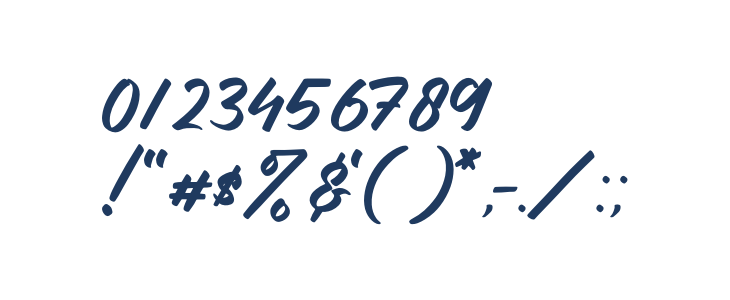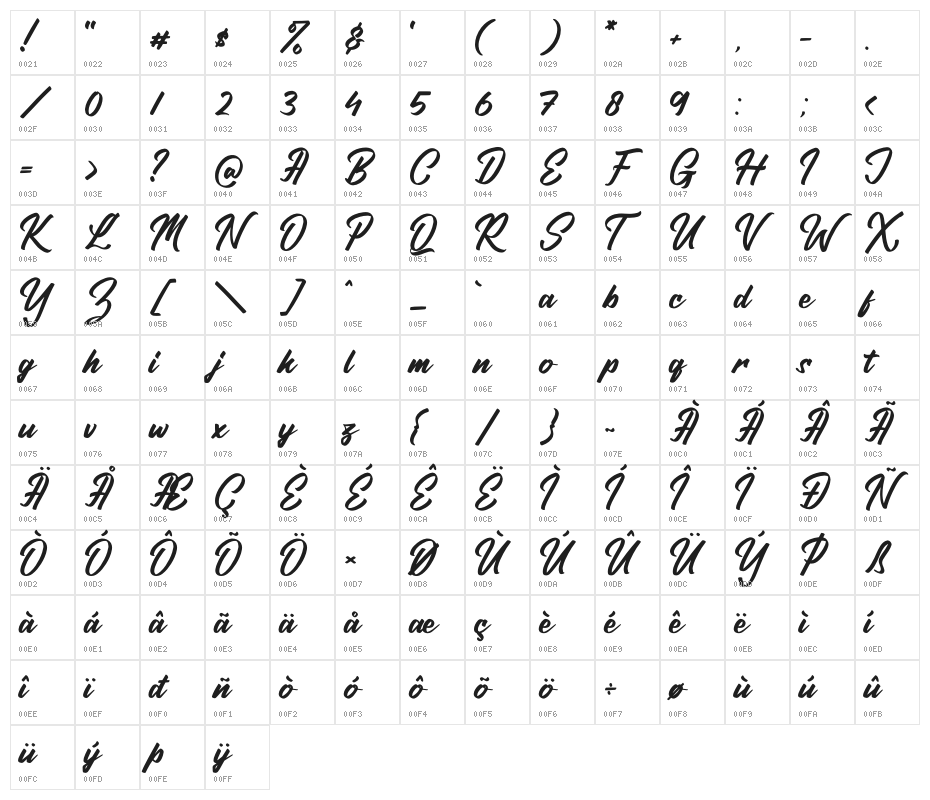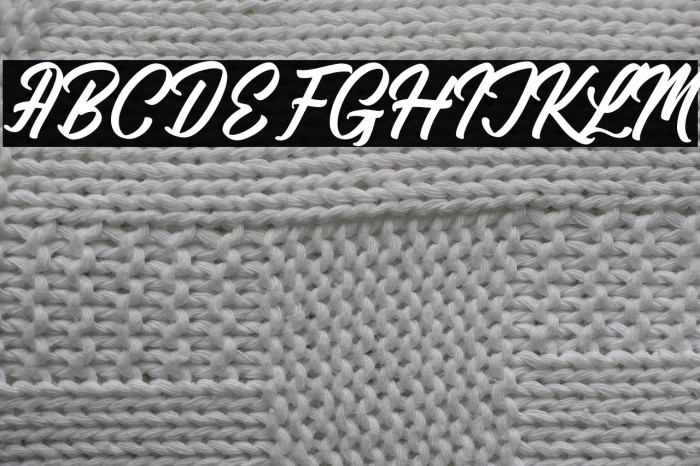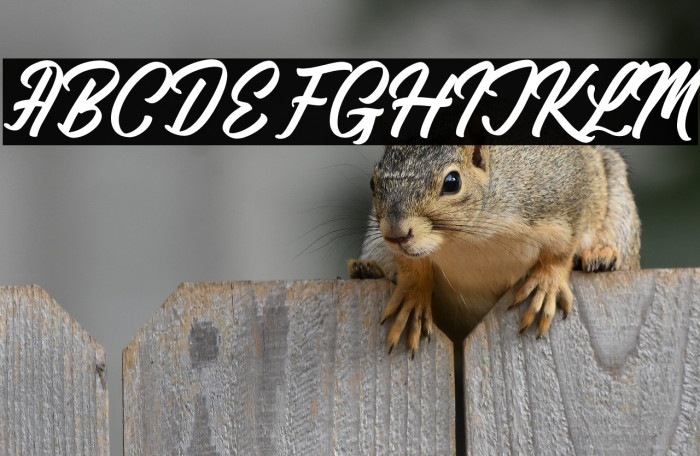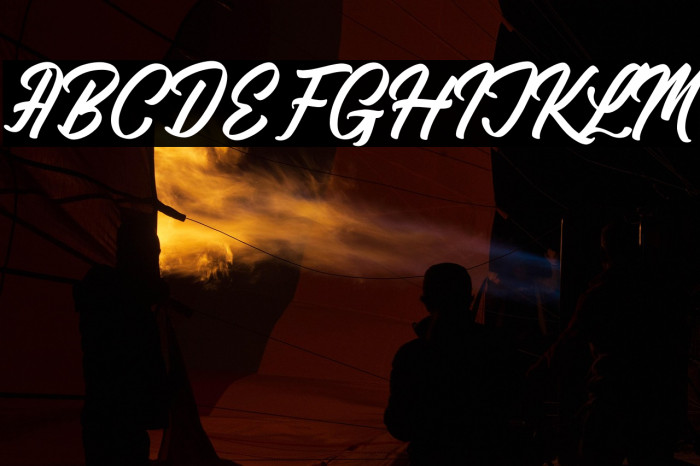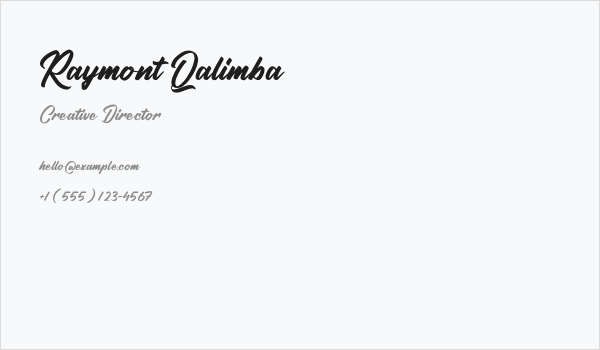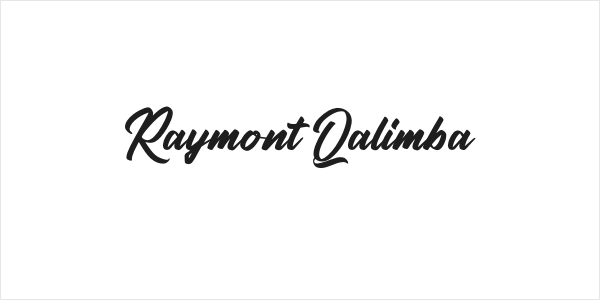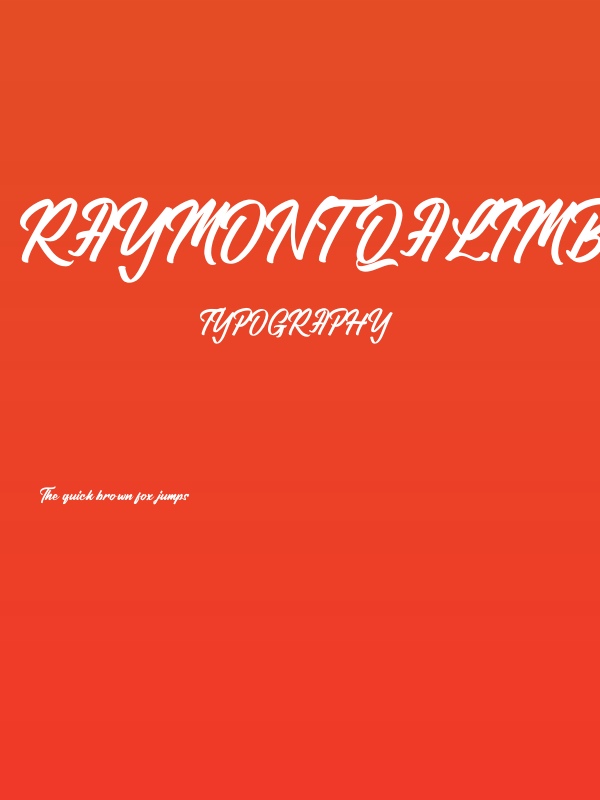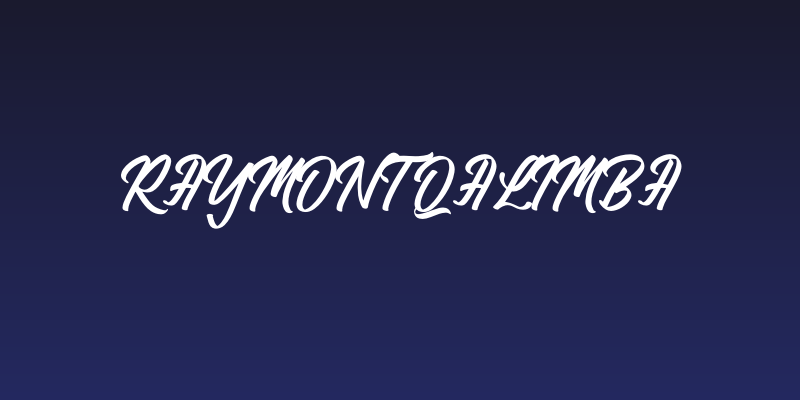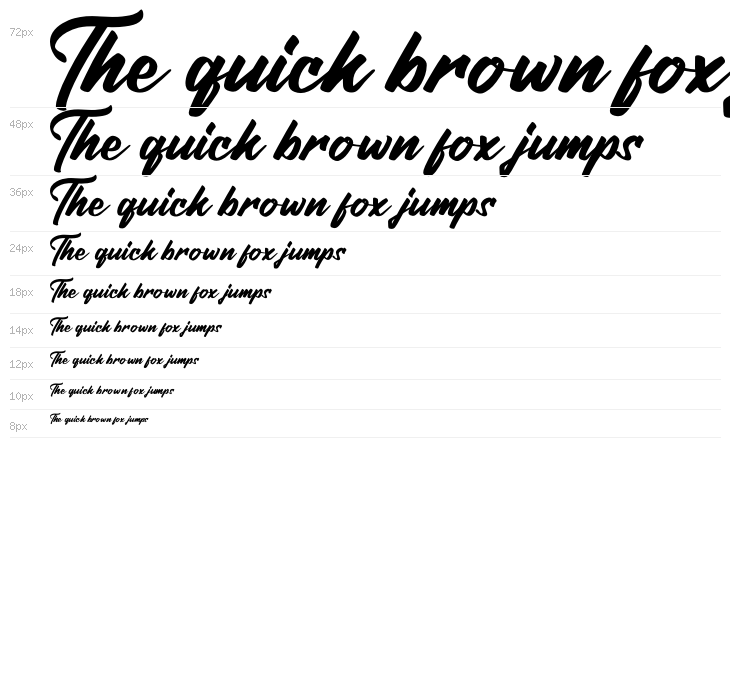
Raymont Qalimba Font
Raymont Qalimba Description
This font features a bold and expressive script style, characterized by its flowing, cursive letterforms. The uppercase letters are elegantly connected, while the lowercase letters maintain a smooth, continuous flow. The numbers and special characters complement the overall design with their consistent stroke weight and dynamic curves. This font exudes a sense of elegance and sophistication, making it ideal for projects that require a personal touch. The bold strokes and high contrast between thick and thin lines add to its visual appeal, ensuring that it stands out in any design context.
| Proposed Projects | Ideal for wedding invitations, branding, greeting cards, and elegant packaging designs. |